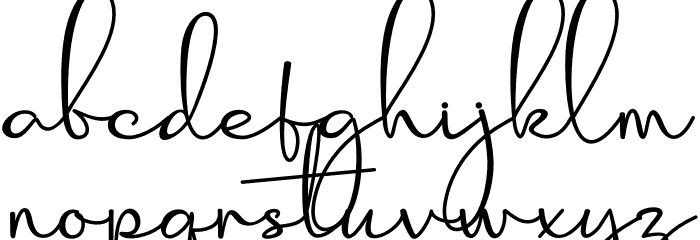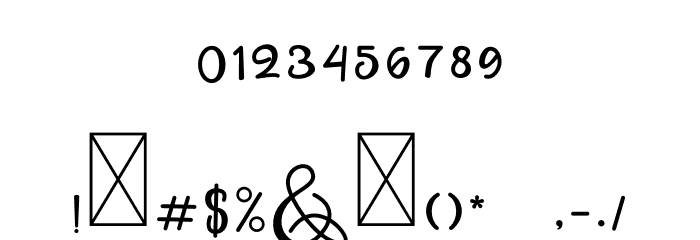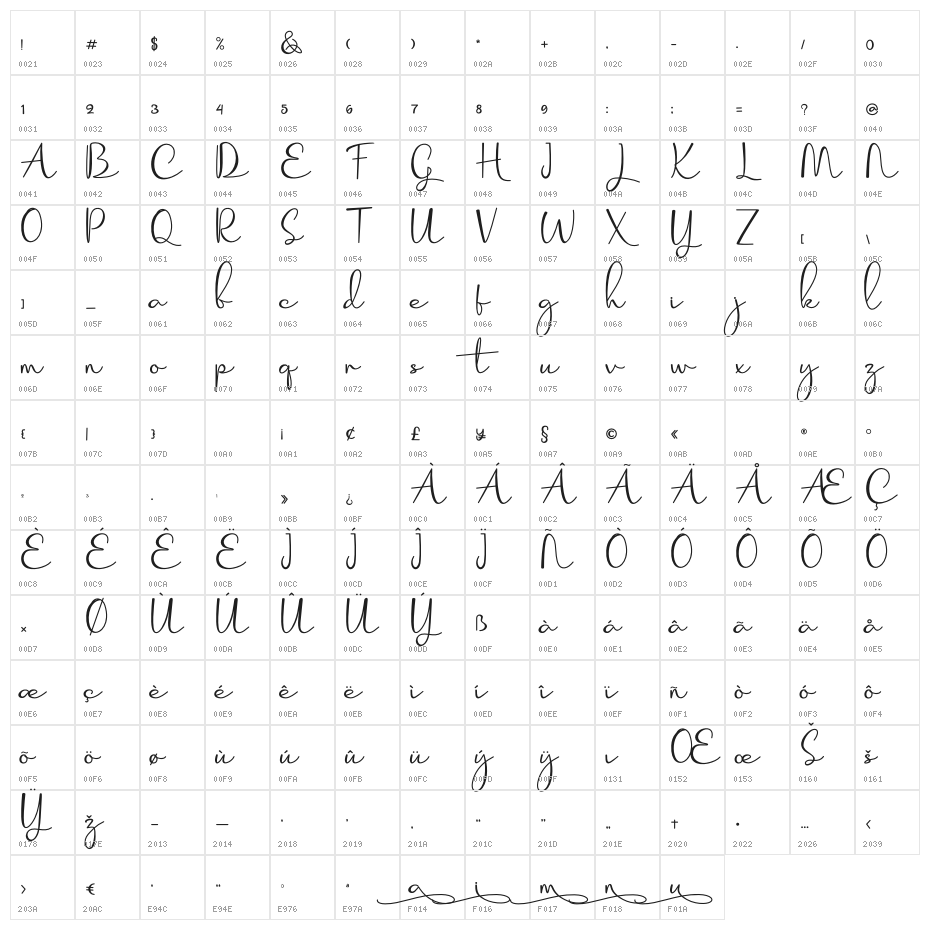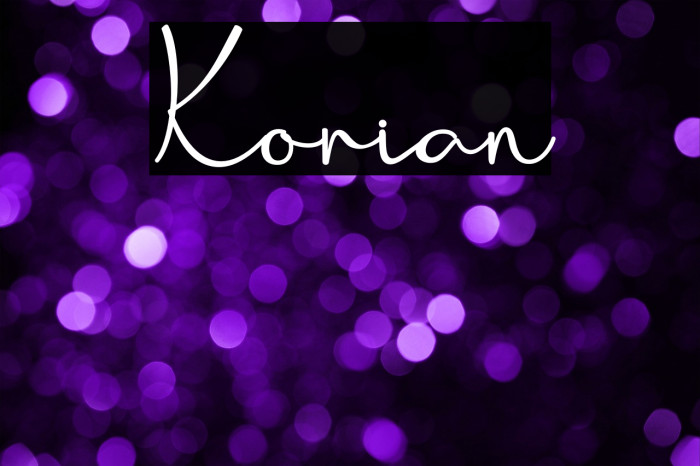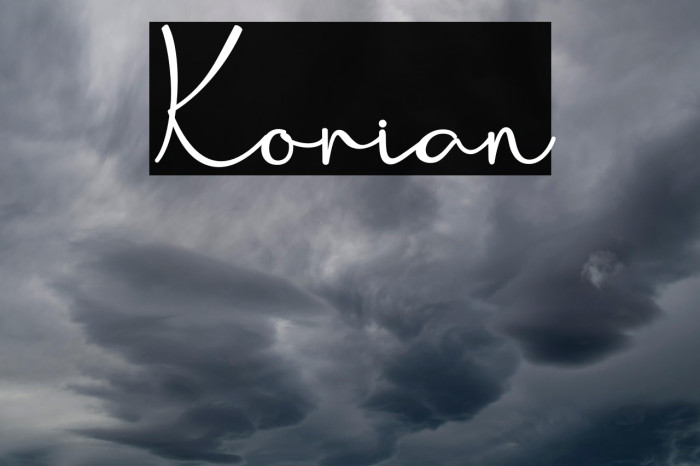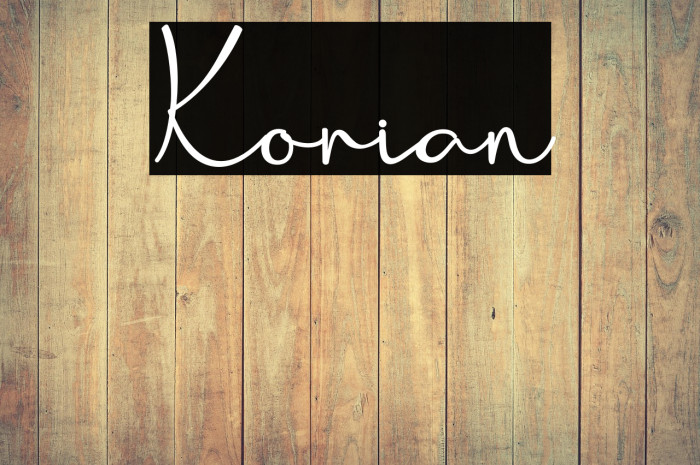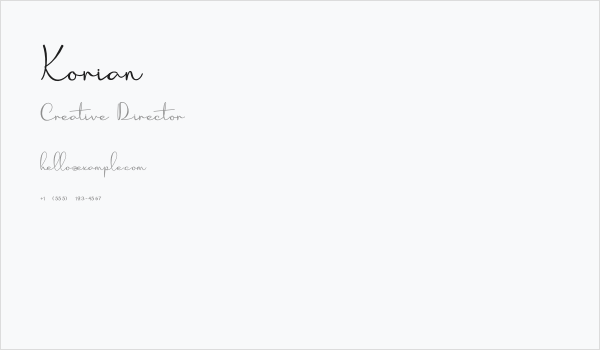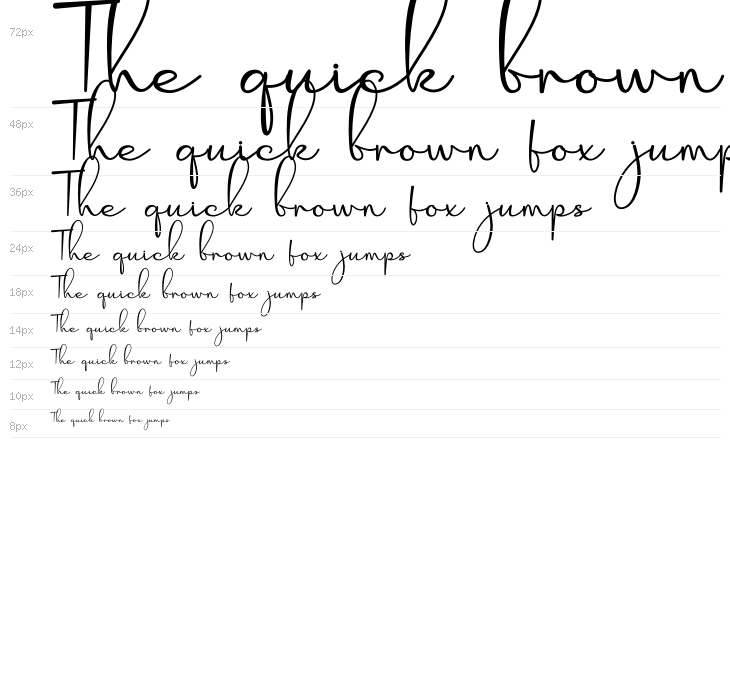
Korian Font
This font features a playful and elegant script style with a handwritten appearance. The uppercase letters are tall and slender, with a slight slant that adds a dynamic flow. The lowercase letters are more fluid, with some characters extending below the baseline, creating a sense of movement. The numbers are consistent with the overall style, maintaining the same fluidity and elegance. Special characters are designed to complement the letters, with a similar handwritten feel. The strokes are consistent in thickness, providing a harmonious look across all characters.
A playful and elegant handwritten script font with fluid strokes.
- Proposed Projects: Ideal for wedding invitations, greeting cards, personal branding, and creative projects that require a touch of elegance and personality.
- Use Case: Logos, Invitations, Greeting Cards